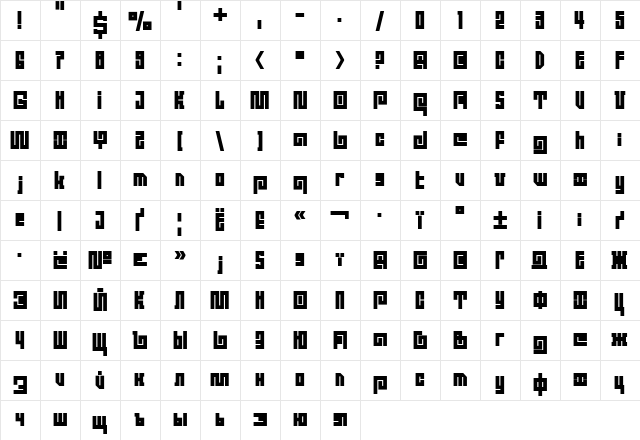
DS Quadro Black
| Designer | Nikolay Dubina |
Design Context for DS Quadro Typeface
DS Quadro is a composed and adaptable typeface that performs quietly and consistently across a wide range of design contexts.